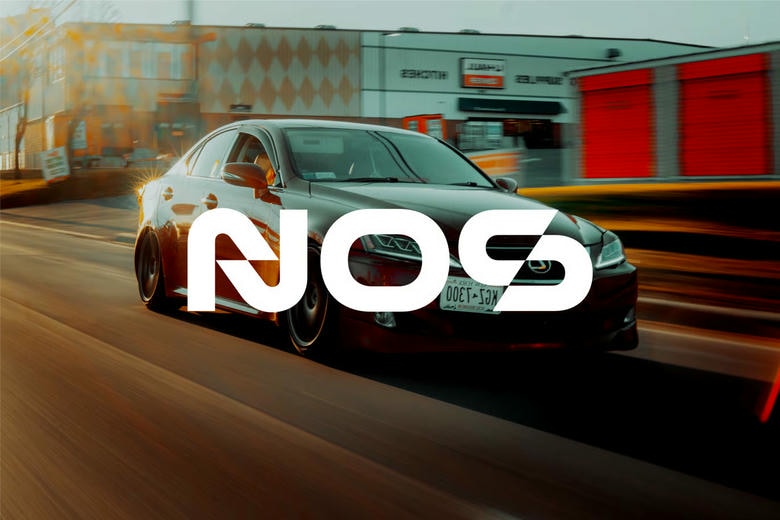
Nos Font
Nos Font features sleek, dynamic lines that reflect the speed and excitement of modern sports racing. Its bold style gives a sense of velocity, with clean, modern shapes that suggest fast-paced movement.
Nos Display Font